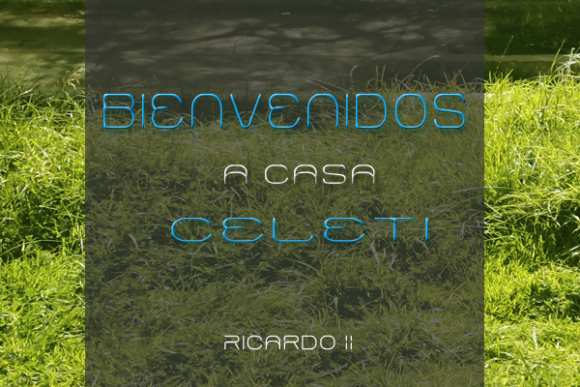
The Perfect Blend of Abstract Elegance
Have you ever sat at your desk, staring at a blank canvas, waiting for inspiration to strike? It’s a moment we’ve all experienced at some point in our creative journey. For designers, this blank slate can be both a blessing and a curse. But what if we told you that there’s a font that can bring your most abstract ideas to life? Welcome to the world of Celeti Font, a playfully conceptual display typeface font that’s sure to turn heads.
With its eclectic beauty and versatility, Celeti Font is the perfect addition to any designer’s toolkit. Whether you’re working on a branding project, a graphic novel, or a web design, this font is sure to add a touch of sophistication and whimsy to your creations. Its unique shape and style make it a valuable asset for designers looking to push the boundaries of their work.
Celeti Font Key Features
- Font Family: Celeti Font is a sans-serif font family designed for digital use.
- Font Size: Celeti Font comes in 6 different weights, ranging from Light to Black, with corresponding font sizes.
- Resolution: Optimized for high-resolution displays, including 2x and 3x Retina displays.
- Unique Characteristics: Celeti Font features a clean and modern design, with a focus on legibility and readability in digital environments.
Designer Review: Celeti Font
Overall, I think the Celeti font has some great qualities, but it’s not without its flaws. ✨ Here are a few things that I appreciate:
- The font has a unique and interesting style, making it perfect for designs that need a bit of flair.
- It’s highly customizable, with many different font weights and styles to choose from.
- The font is highly legible, even at smaller font sizes.
However, there are some limitations that I think need to be considered:
- ⚠️ The font may not be the best choice for long blocks of text, as the unique style can make it difficult to read in large quantities.
- ⚠️ Some users may find the font to be a bit too ornate, which can be overwhelming in certain designs.
- ⚠️ The font is not optimized for certain languages or character sets, which can cause issues in international designs.
Overall, I think the Celeti font is a great choice for designers who want to add a bit of flair to their designs, but need to be mindful of the limitations and use it in moderation.
Tips for Getting the Most Out of Celeti Font
To get the most out of Celeti Font, consider the following tips:
- Use it for headings and titles to add a touch of elegance.
- Pair it with bold fonts for a striking contrast.
Some common use cases for Celeti Font include:
- Magazine and book titles. Alternatives to Celeti Font for Designers
What is the recommended font size for optimal readability?
The recommended font size for optimal readability of Celeti Font is between 12pt and 24pt. This range allows for clear and legible text, while also maintaining the font’s intended aesthetic. However, font size may vary depending on the specific use case and design requirements.